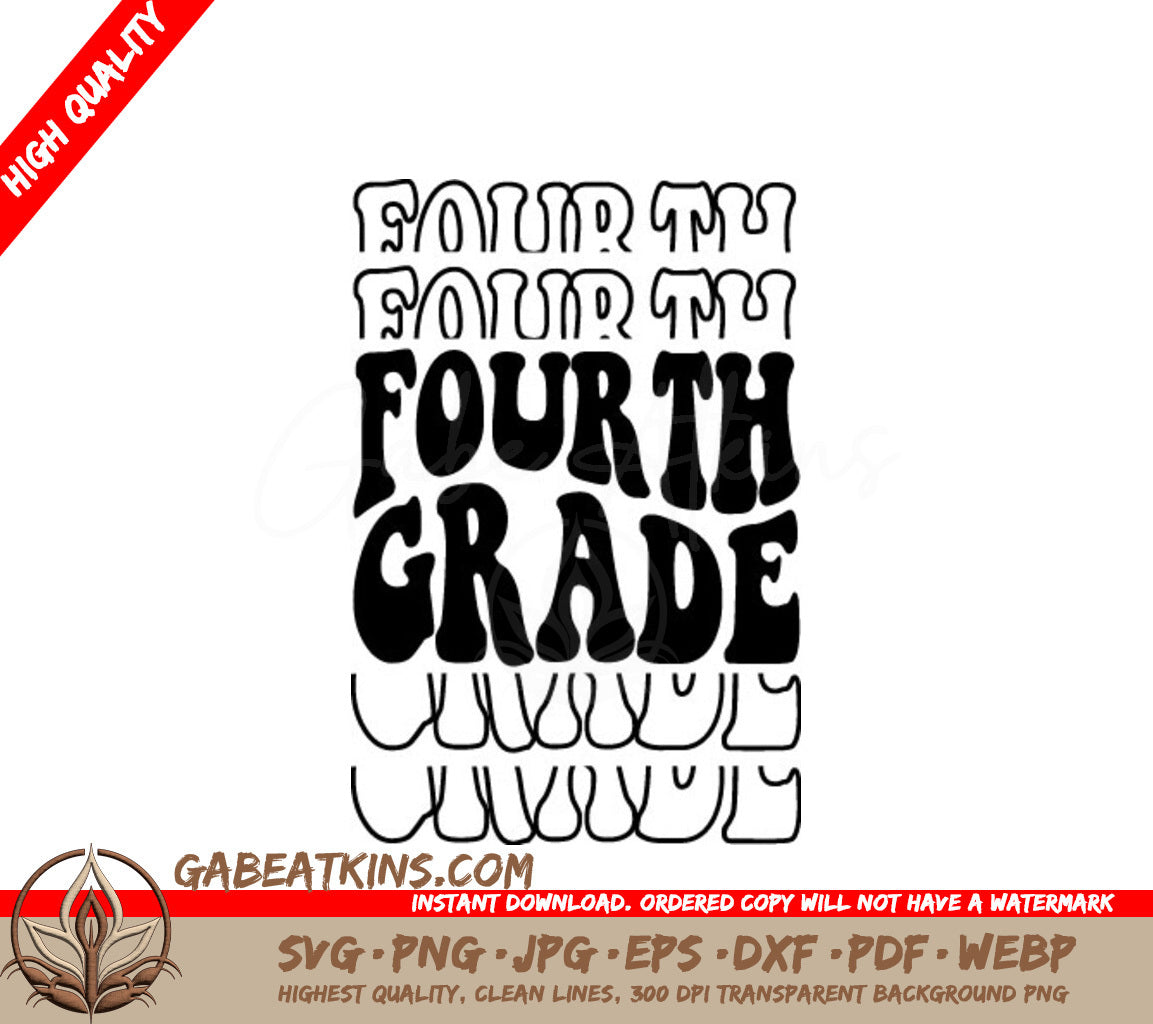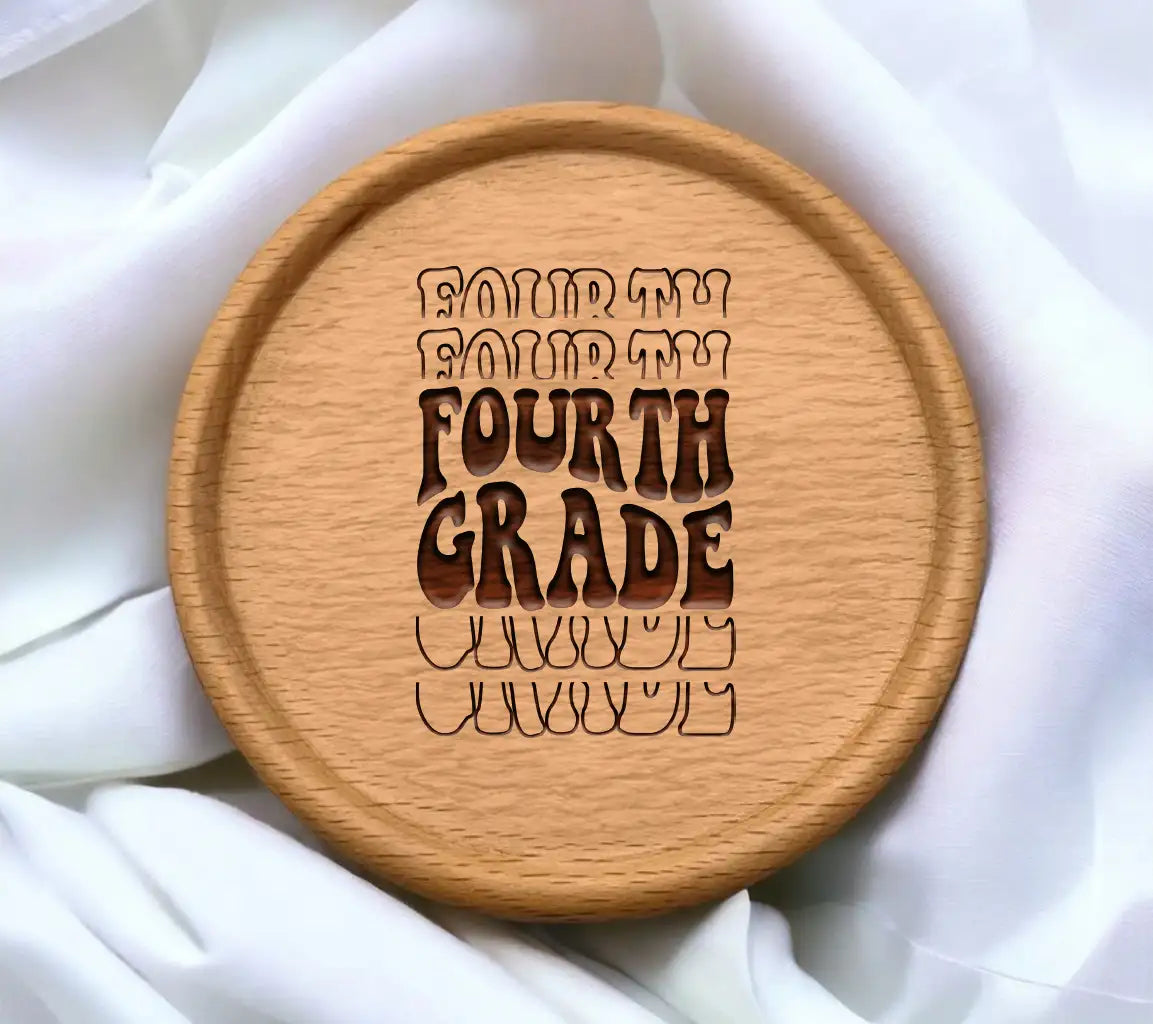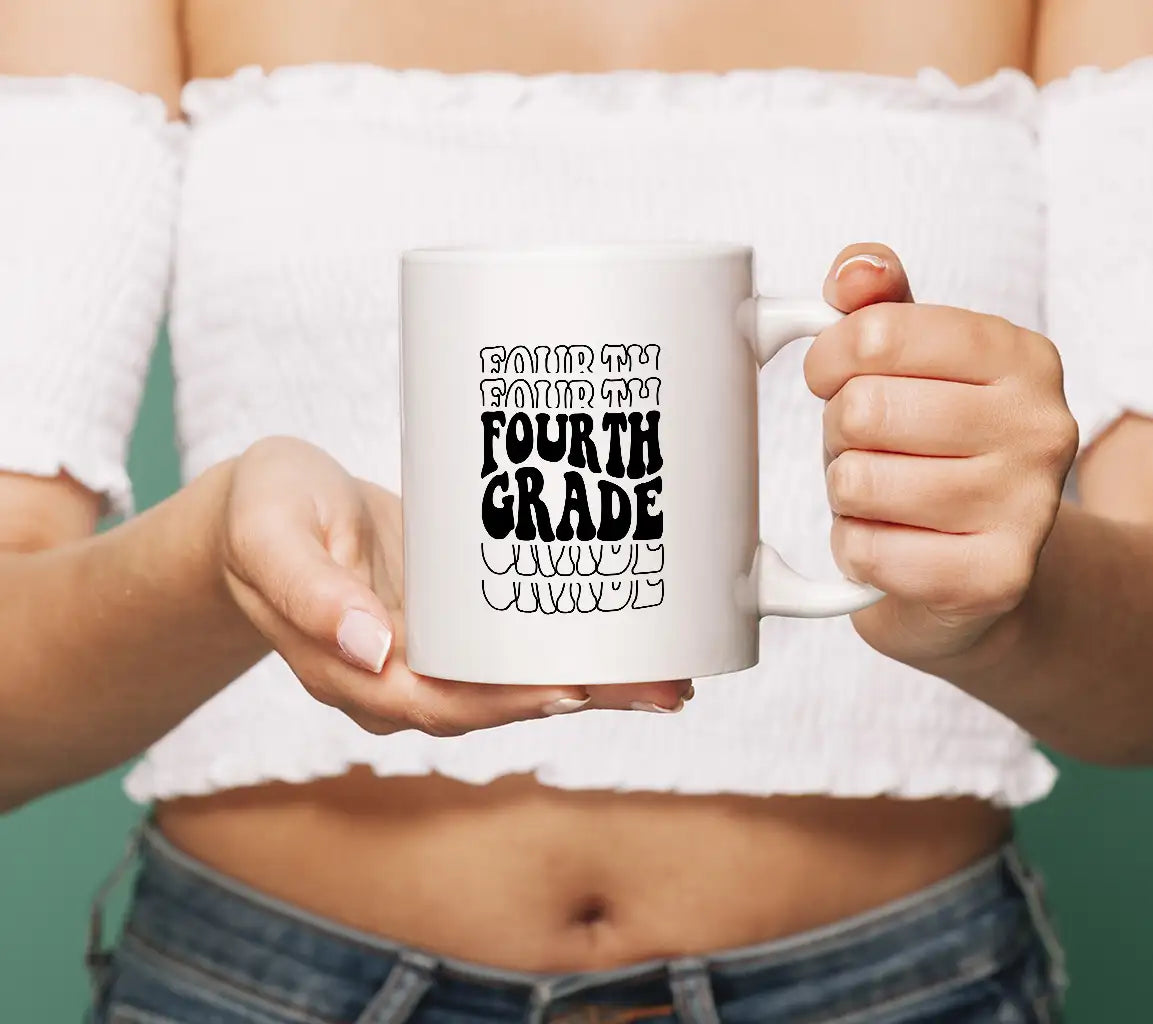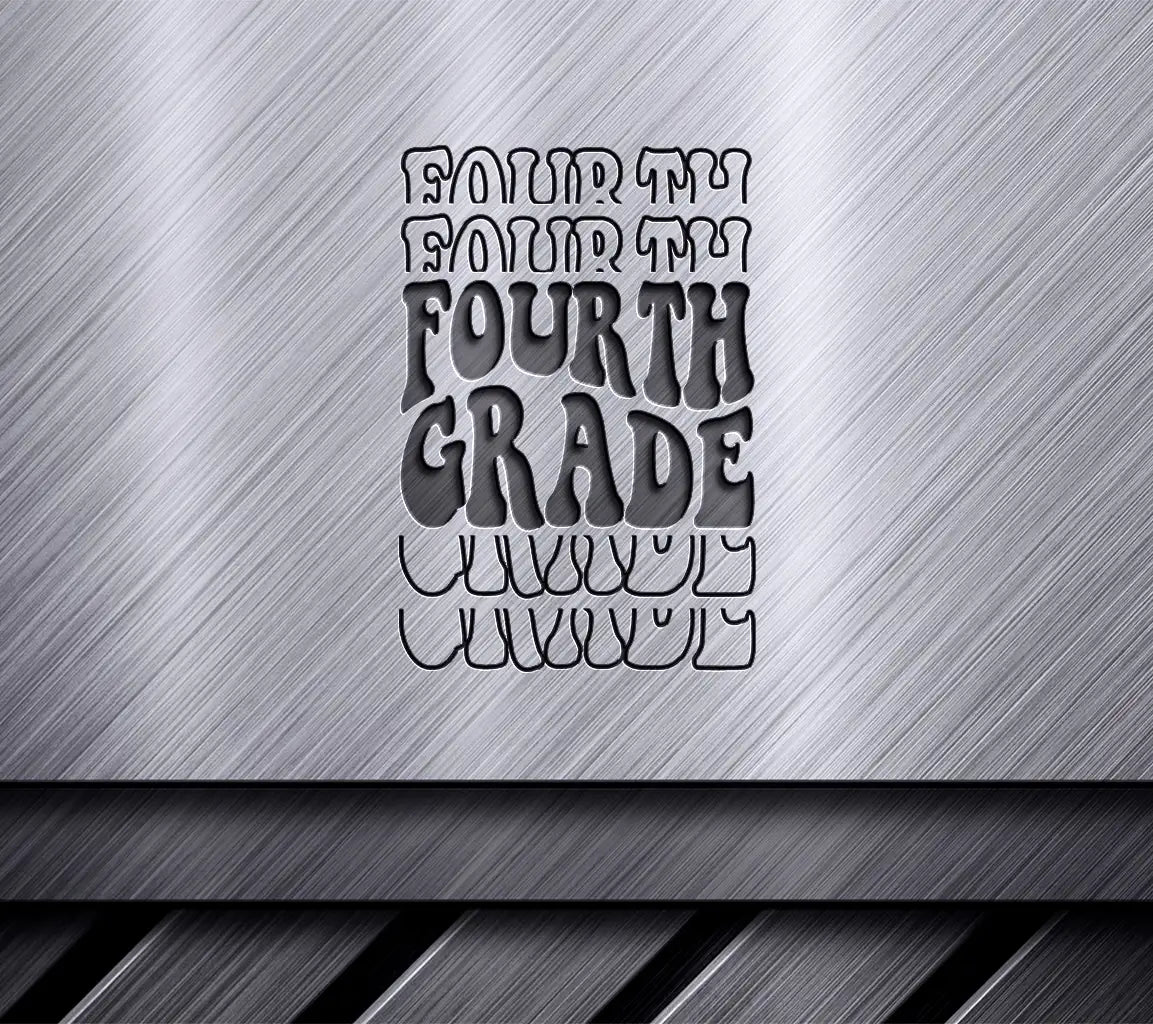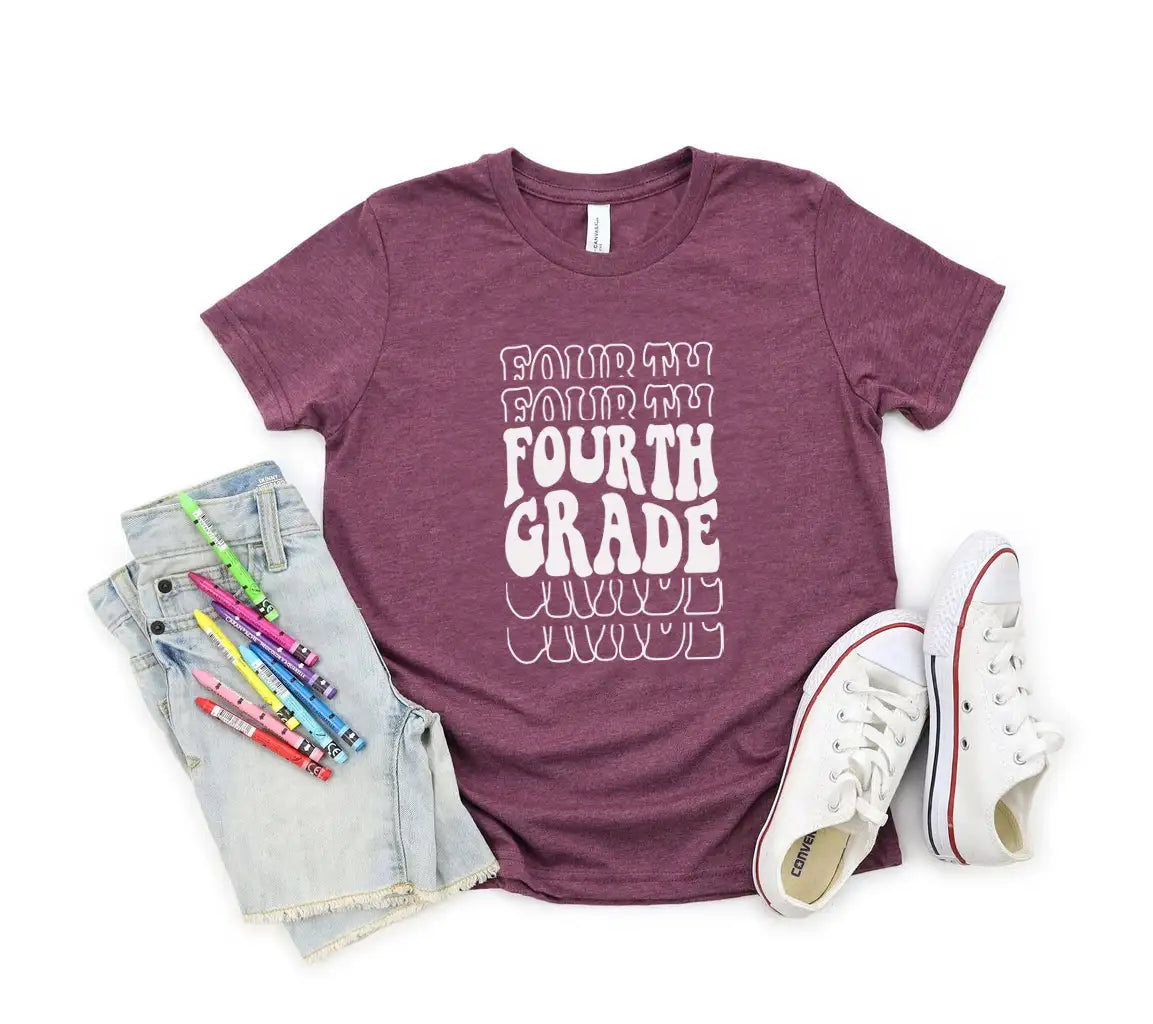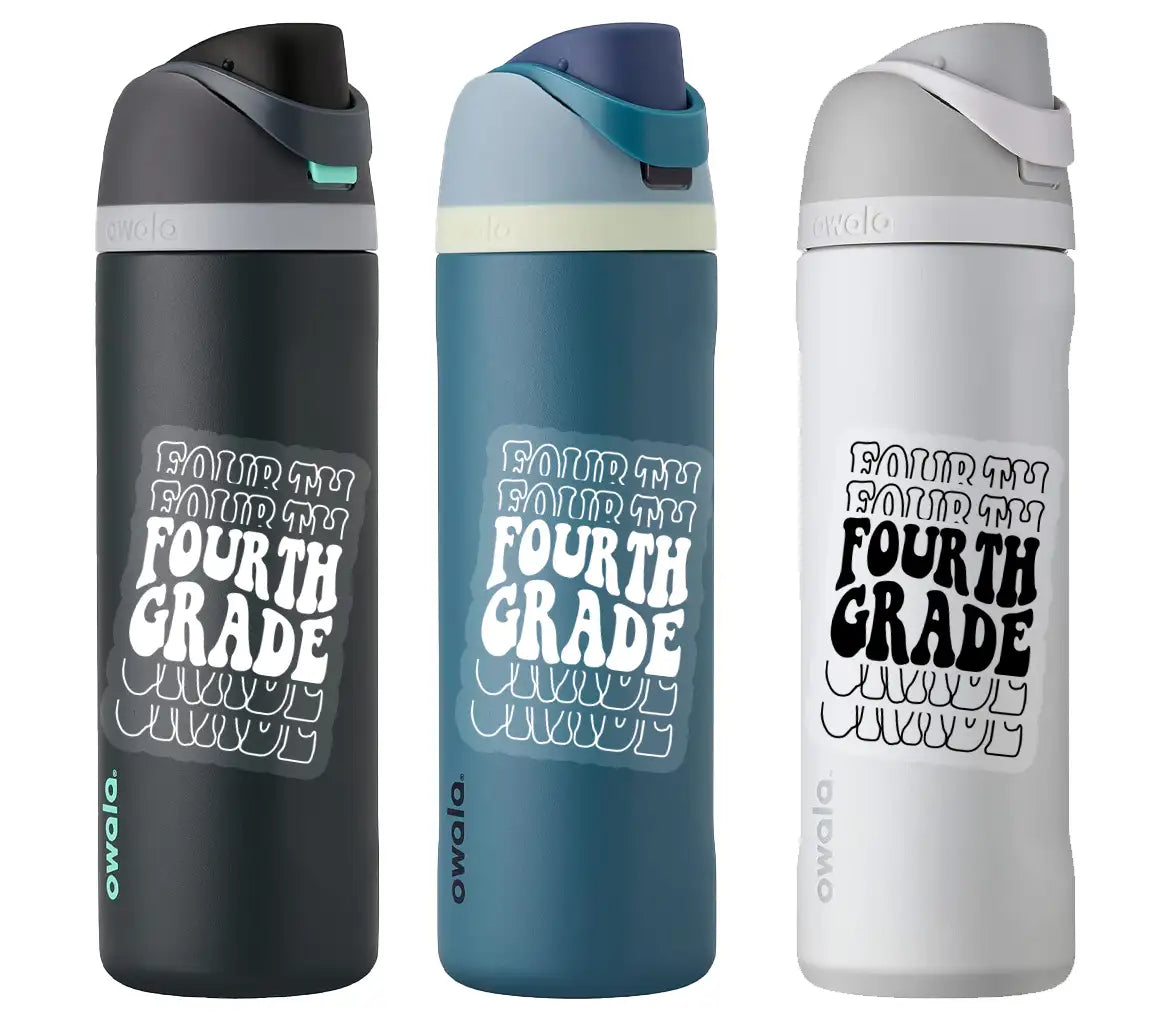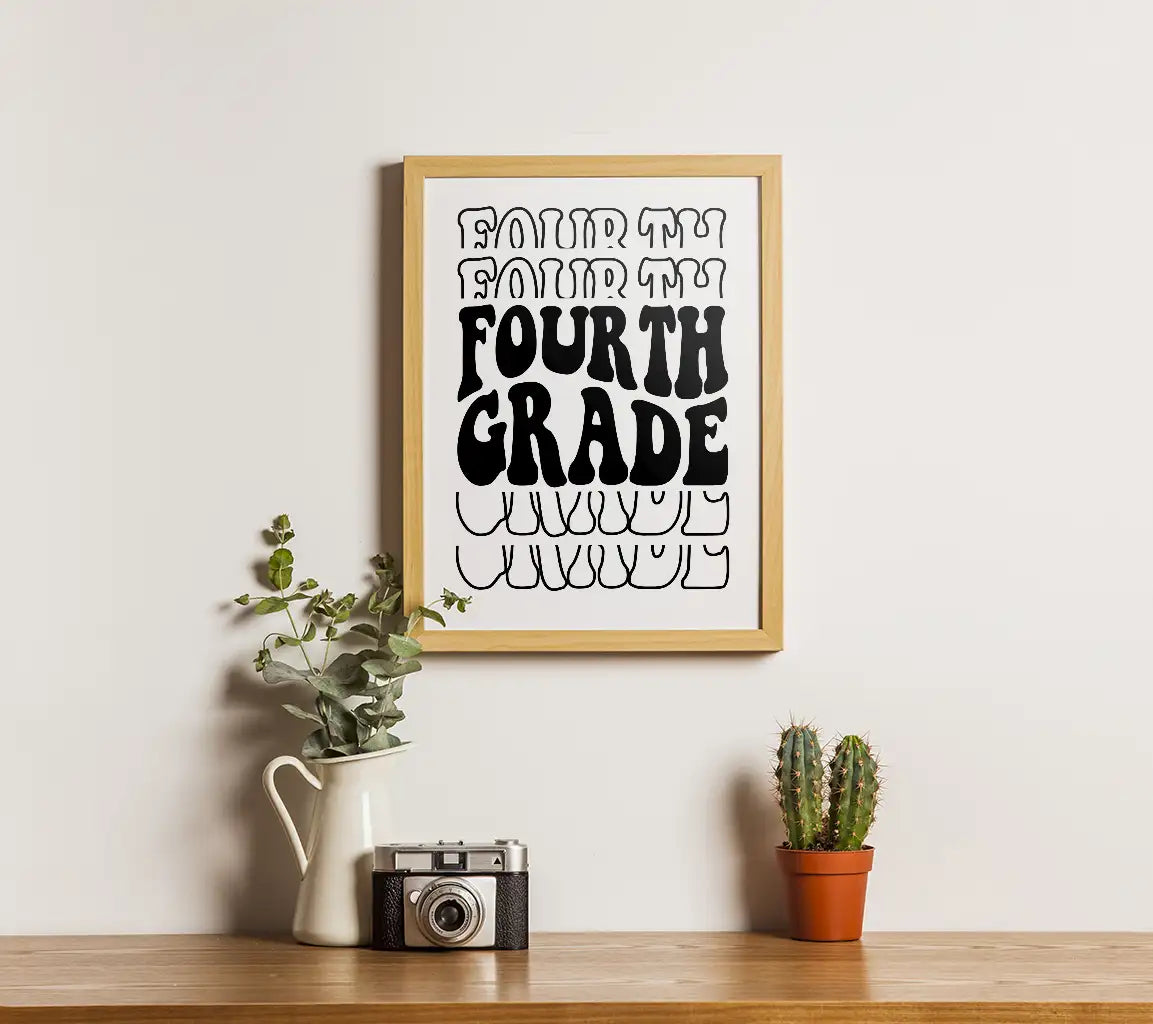
Get ready to add a touch of fun and personality to your classroom with the Fourth Grade Fonts SVG package! This bundle is packed with everything you need to create unique and engaging educational materials that will make learning exciting for your students.
Whether you're designing bulletin boards, creating printable worksheets, or adding a special touch to your classroom decor, these high-quality SVG fonts will help you bring your vision to life. With a variety of styles to choose from, you'll find the perfect font to match your classroom theme and personality.
Why Choose Fourth Grade Fonts SVG?